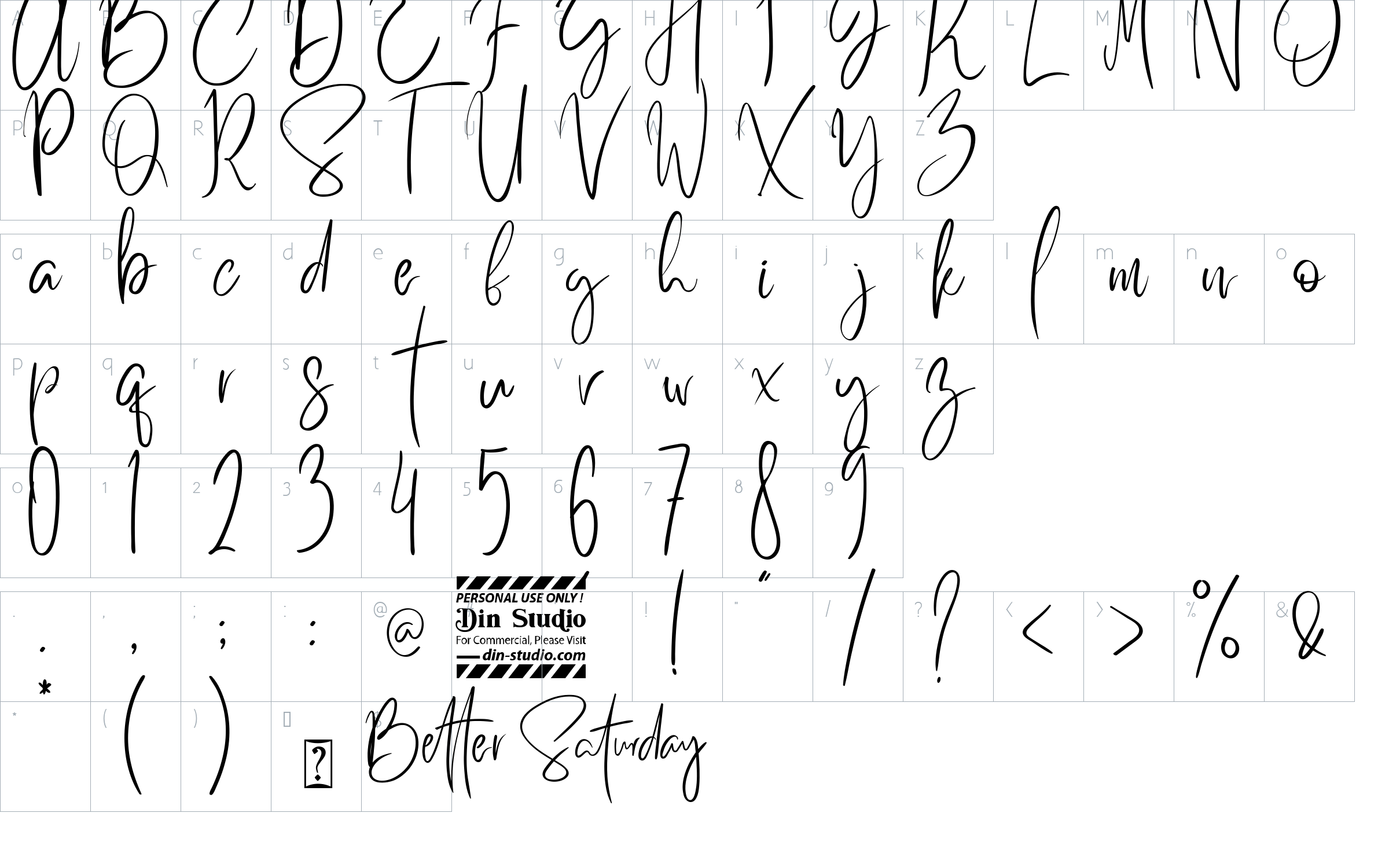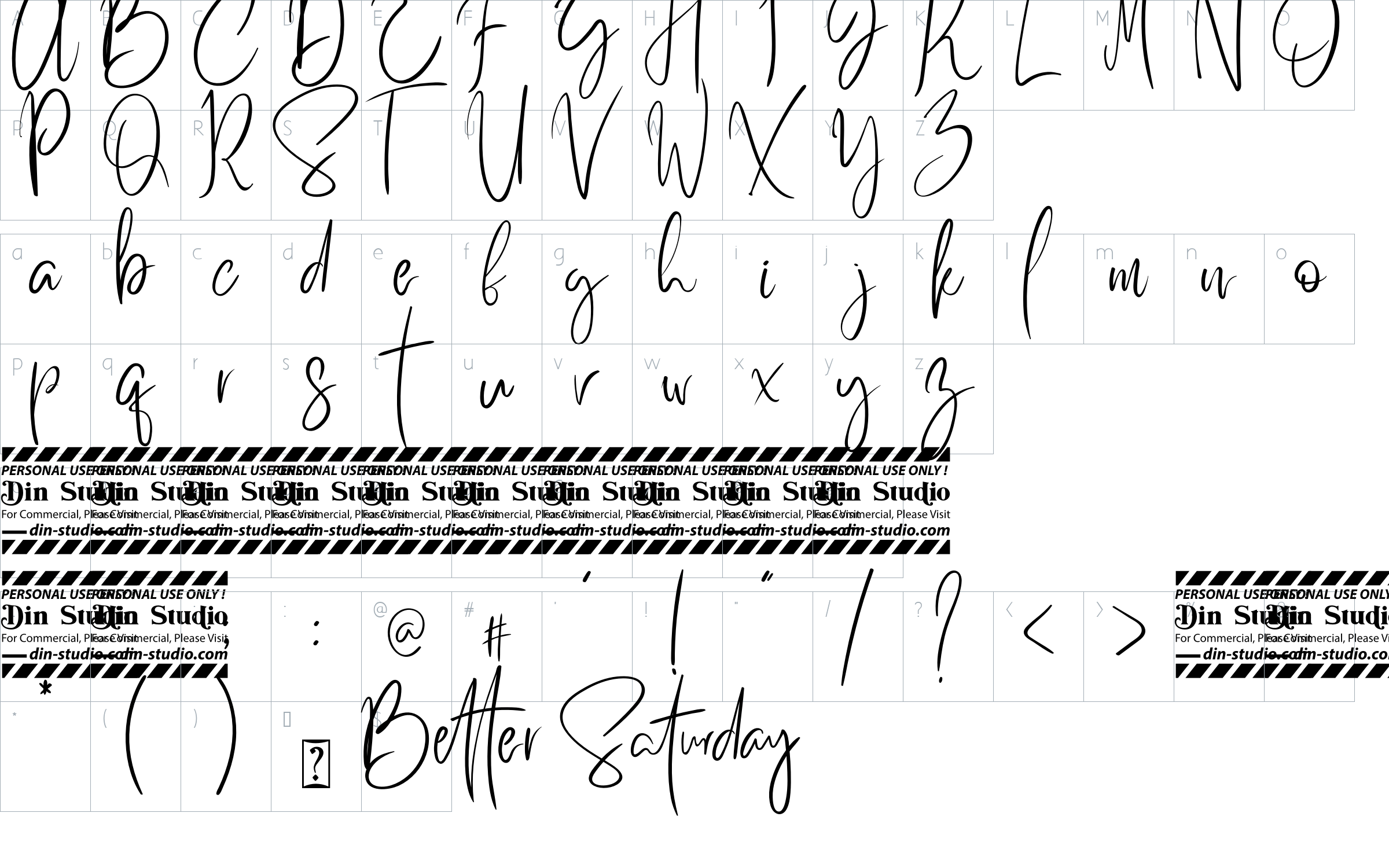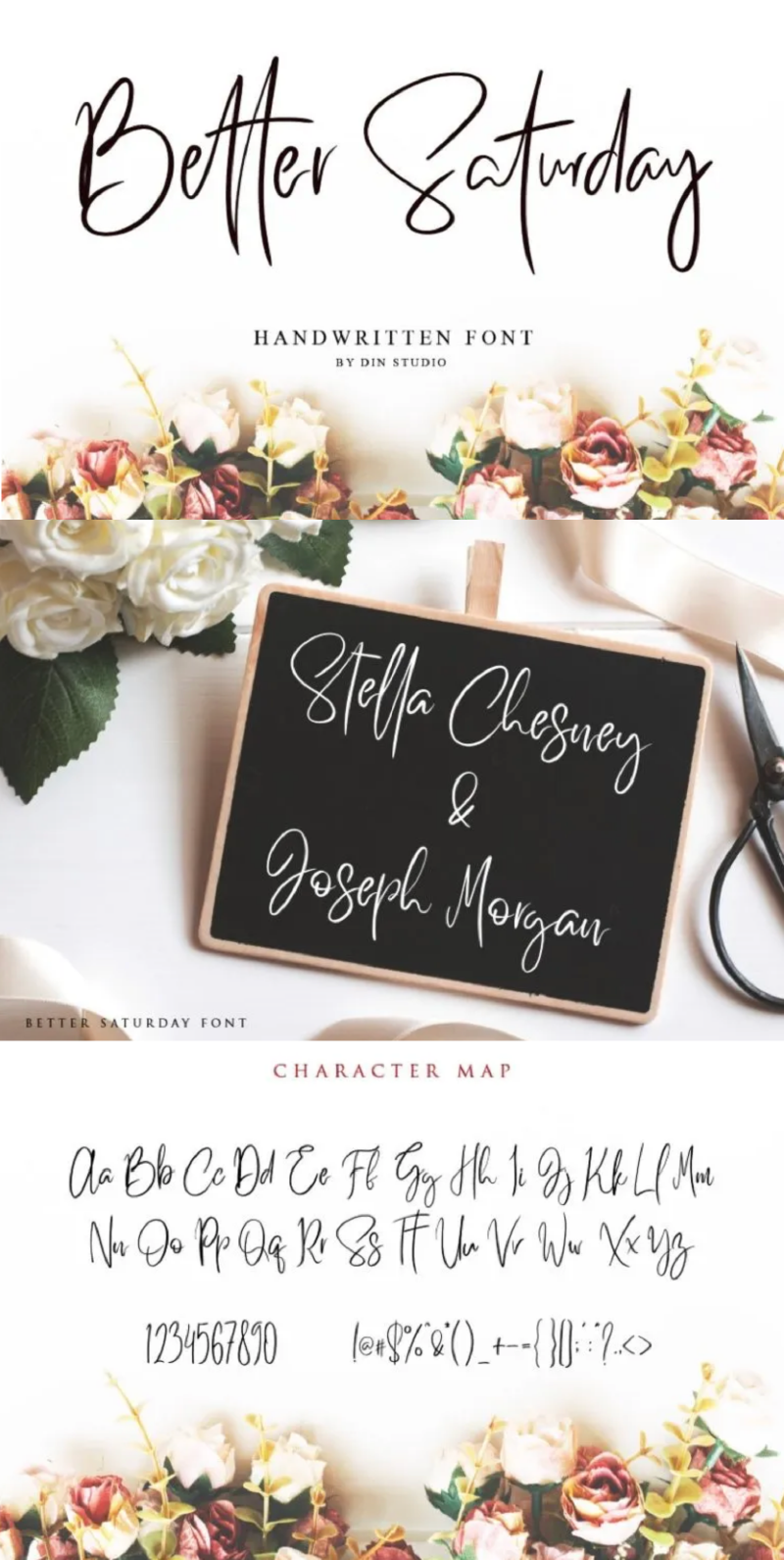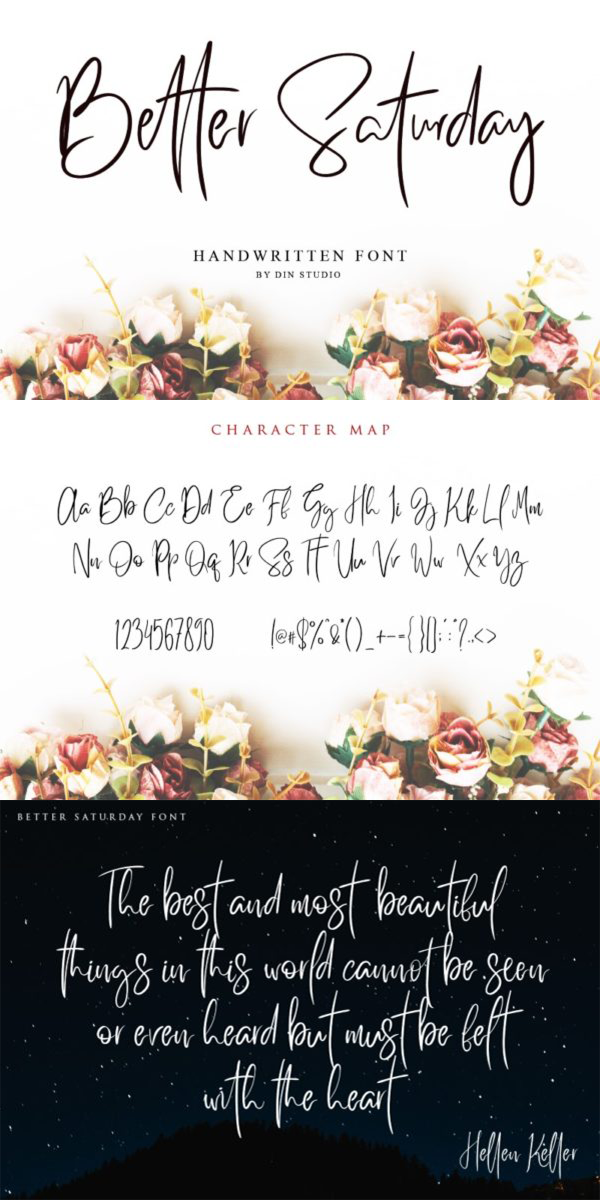
Better Saturday Font
About Better Saturday
Introducing Better Saturday for your better work. With a classy and natural handwritten style, it brings a classy and chic typeface. Better Saturday is best used for weddings, brandings, logotypes, quotes, and more. See the previews above to get some inspiration on how you can use them. Happy designing!
- Beautiful Ligatures